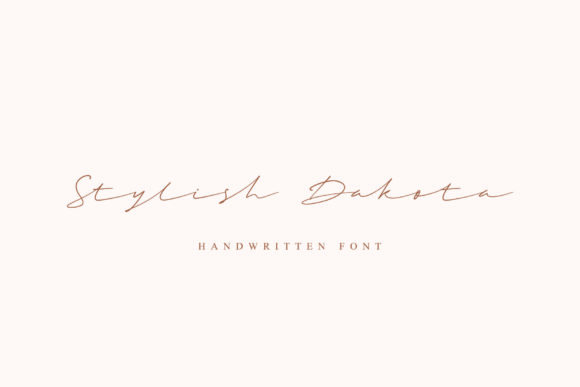
Unleash your creative genius with the enchanting Stylish Dakota font, a script masterpiece that will ignite your designs. This alluring font family is the epitome of sophistication and elegance, transforming your ordinary words into captivating works of art.
Indulge in the intricate curves and flowing lines of Stylish Dakota, where each letter dances with grace and fluidity. Its charming personality will add a touch of whimsy and loveliness to any project, making it the perfect choice for designing enchanting logos, captivating branding, and irresistible social media posts.
Imagine your brand taking center stage with a logo that exudes timeless charm and undeniable appeal. Stylish Dakota's delicate strokes will leave an unforgettable impression on your audience, creating a lasting connection between your brand and their hearts.
Whether you're a seasoned designer or just starting your creative journey, Stylish Dakota is the perfect companion to elevate your designs to new heights. Its user-friendly nature makes it accessible to all, allowing you to unleash your creativity and craft designs that will capture attention and leave a lasting impression.
So why settle for ordinary fonts when you can embrace the extraordinary? Dive into the world of Stylish Dakota today and let your designs bloom with newfound beauty and enchantment. Each stroke, each letter, each word you create will carry the essence of artistry and leave an imprint of inspiration on your audience.